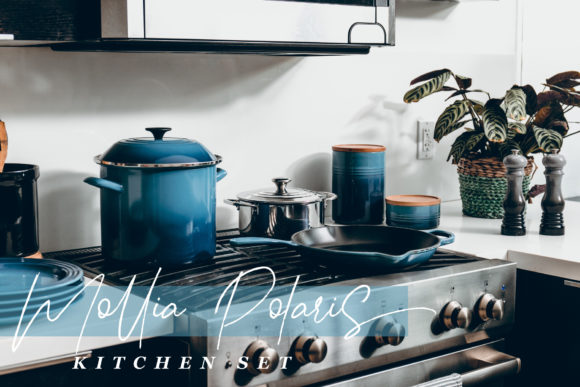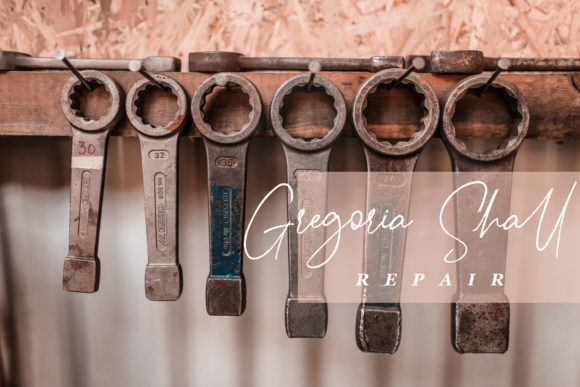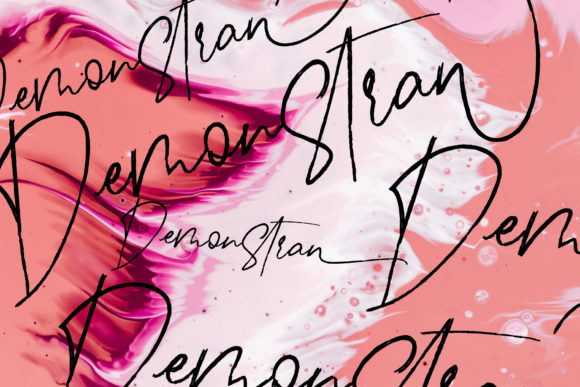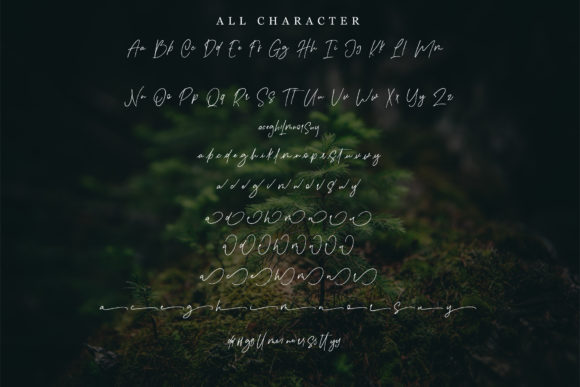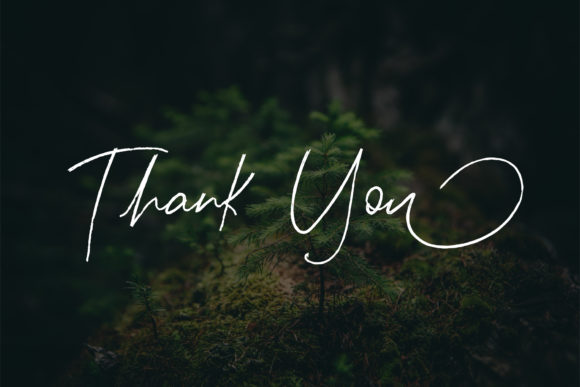
Demonstran Font
About Demonstran Font
Demonstran is a beautiful and light handwritten font with a contemporary twist. Get inspired by its beautiful feel!